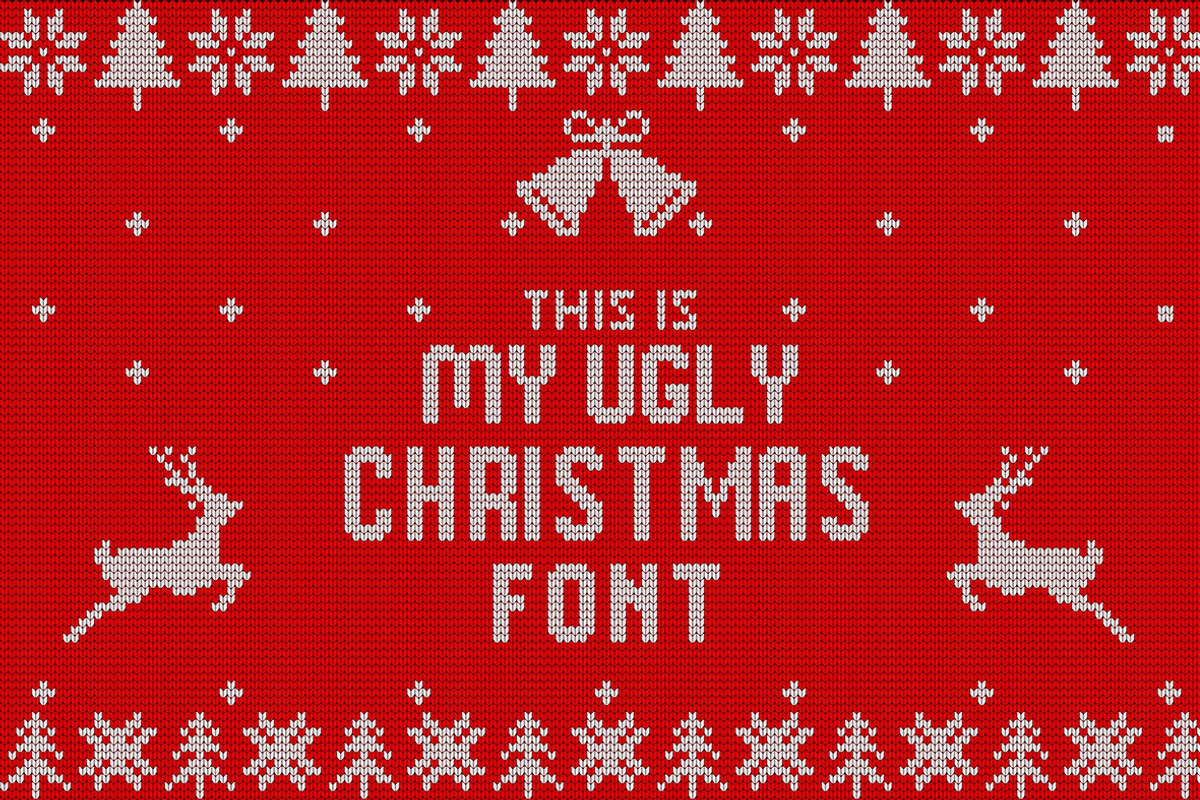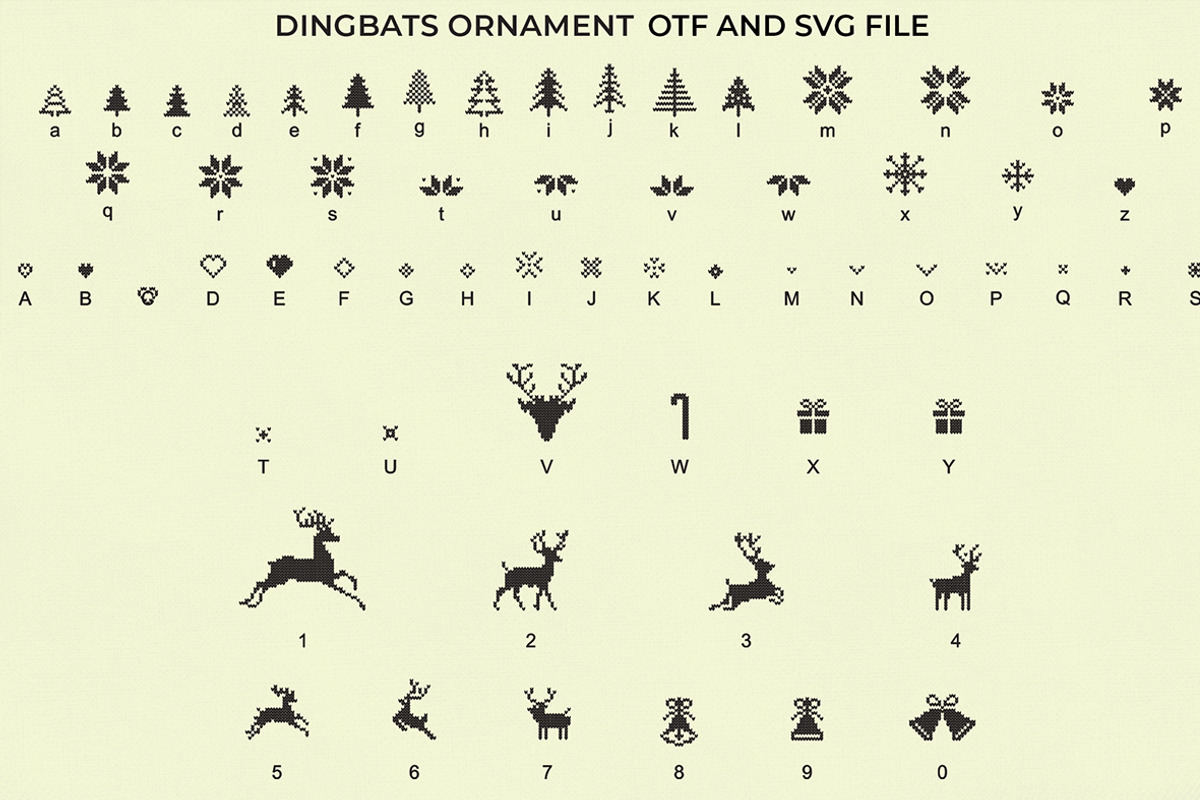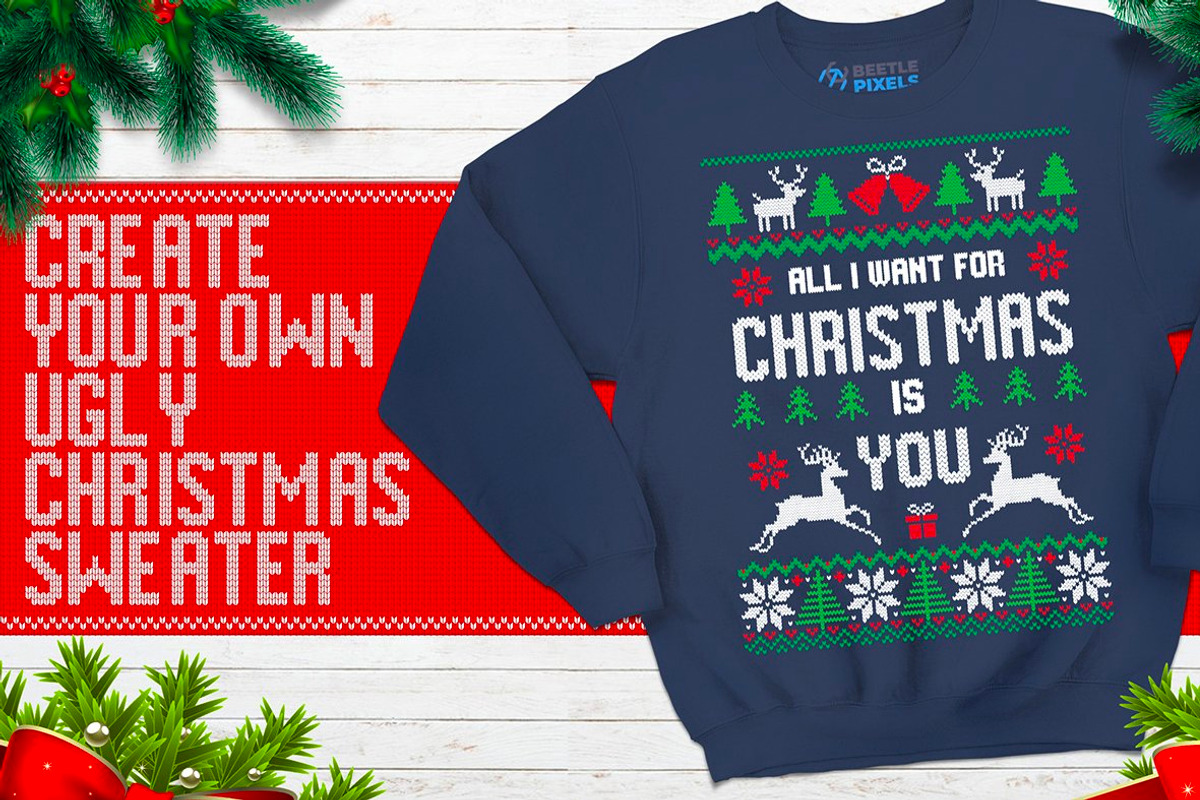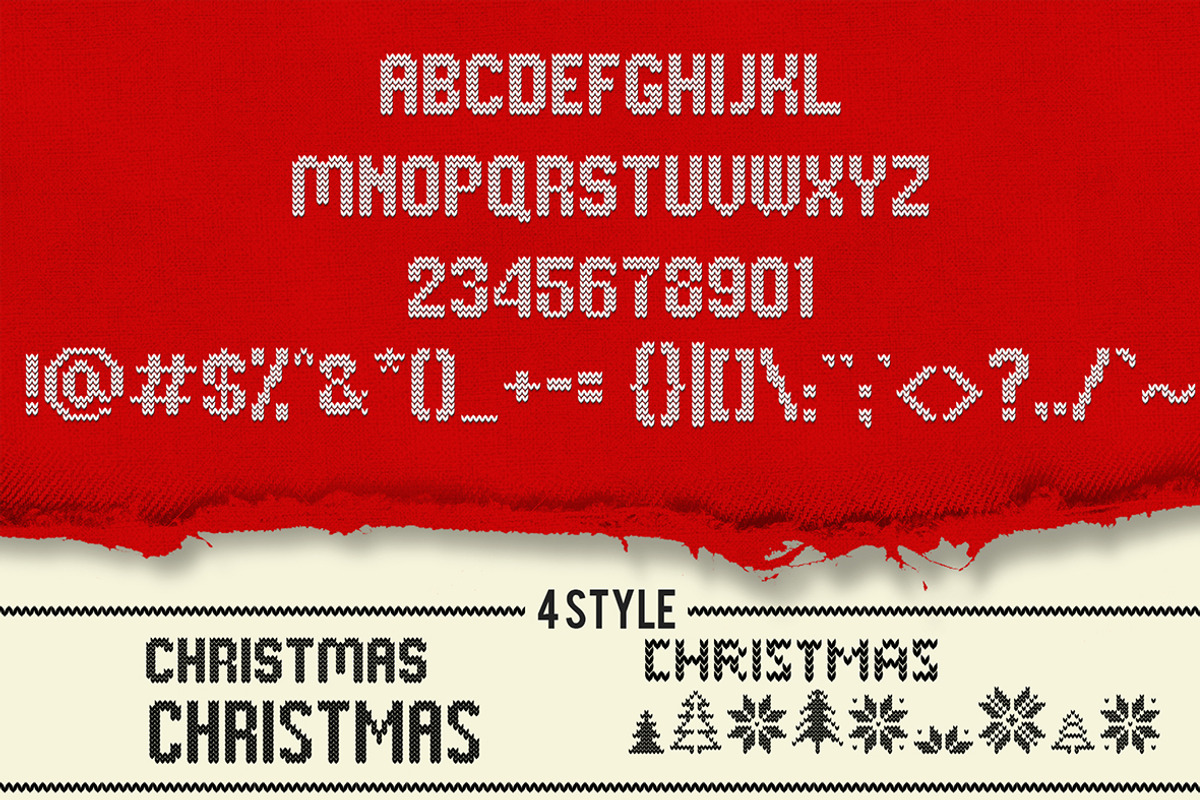
Christmas Knitted Font
Why Christmas Knitted Font is worth a look
Christmas Knitted Font by beetlepixels fits naturally into Branding, posters, packaging, typography.